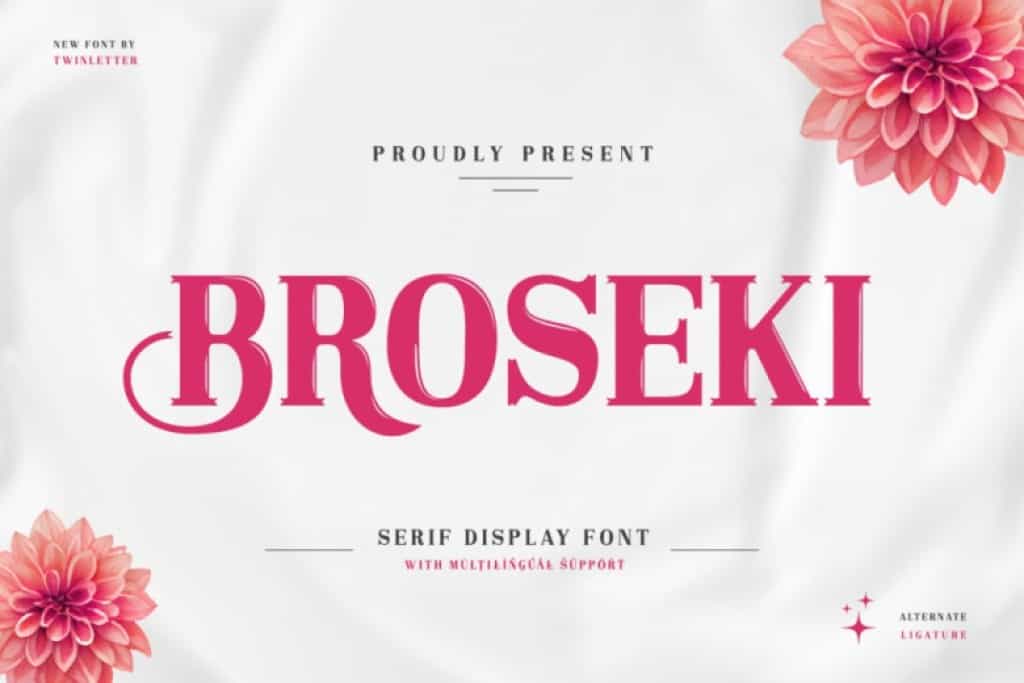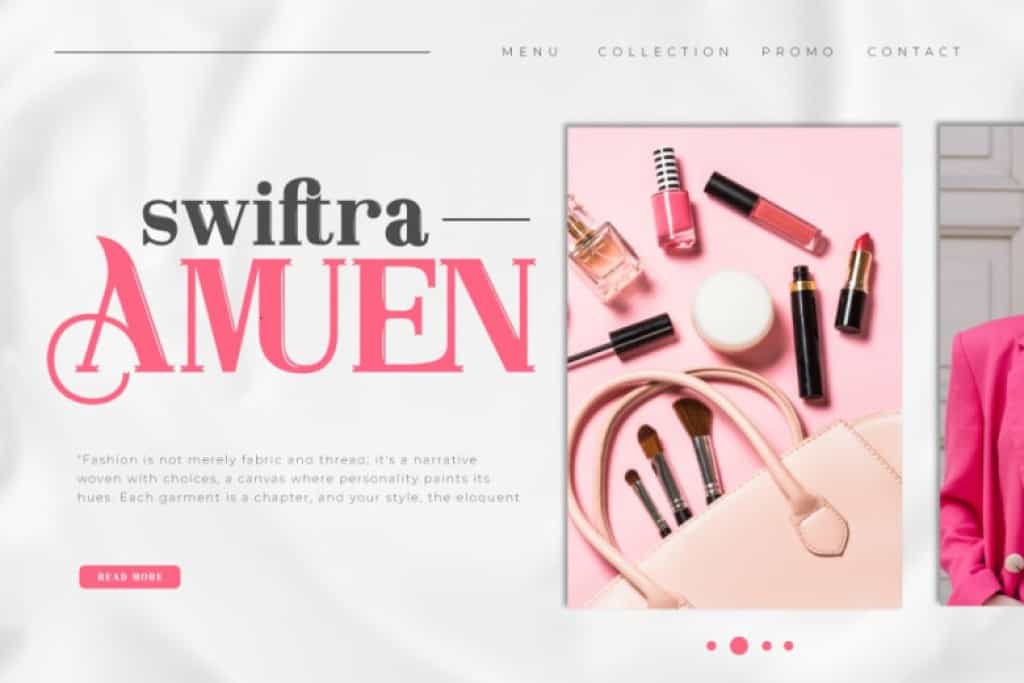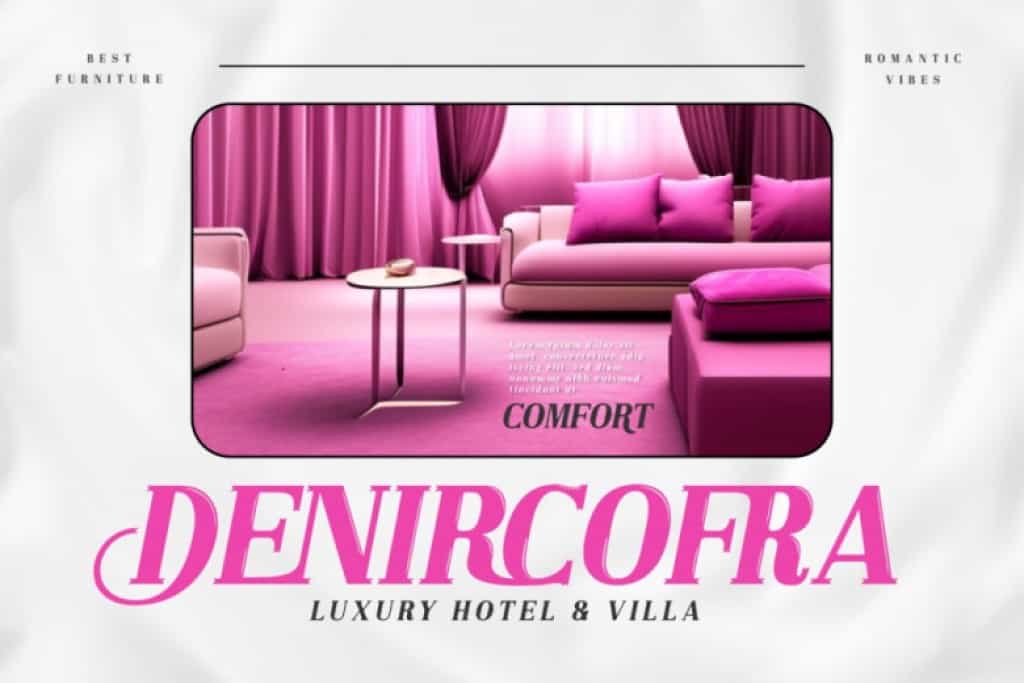
Discover Broseki Font, part of the Serif Display collection—a versatile and unique font perfect for adding a personal touch to your projects. Download it for free and enjoy crafting designs with style, from invitations to social media posts. This font is available exclusively for personal use, giving you the freedom to create without limits. Unlock your creativity with Broseki Font today!
Broseki Serif Font is designed to meet your demand for stylish and sophisticated looks, featuring its beautiful serif touches to create a striking combination of classical sophistication and striking modernism. Each letter of Broseki has been meticulously crafted to exude elegance and majesty; while its serif-style gives projects formal or professional appearance.